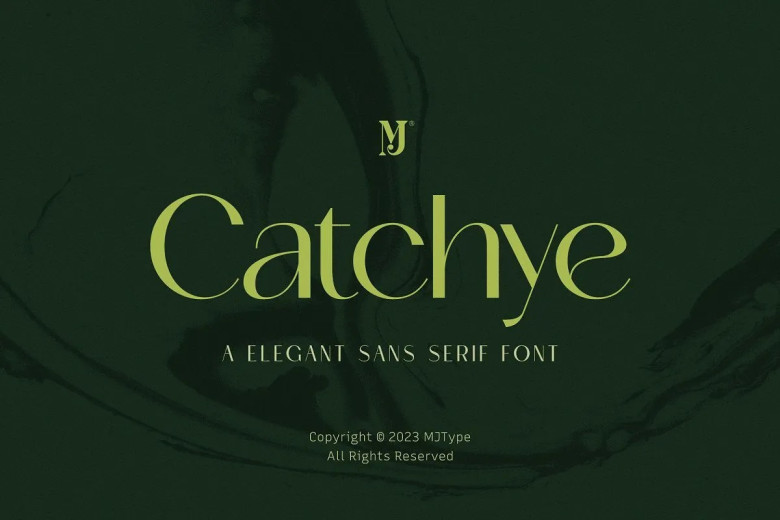
Catchye Font
Catchye is an elegant contrast sans serif font with refined letterforms and proportions that is ideal for logos, packaging designs, editorial design work and more. Catchye will elevate any typographic compositions to new levels of sophistication and charm.
Catchye Sans Serif Font